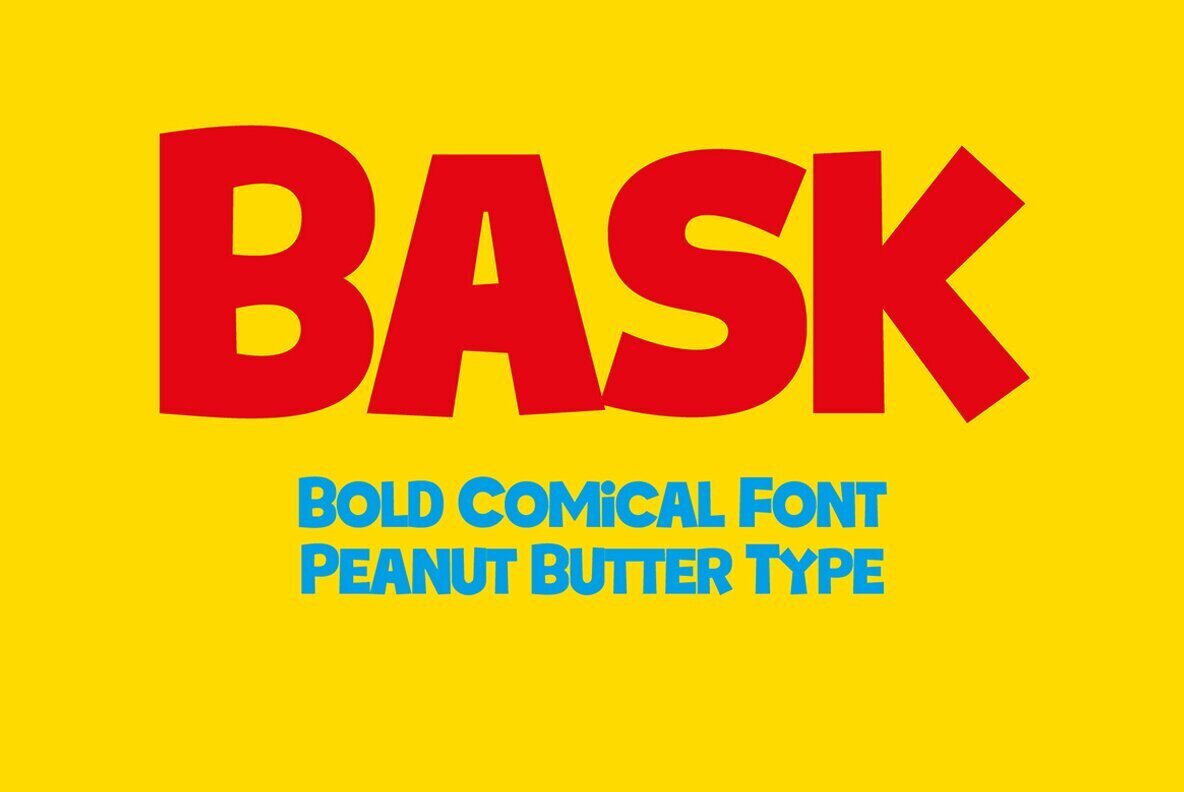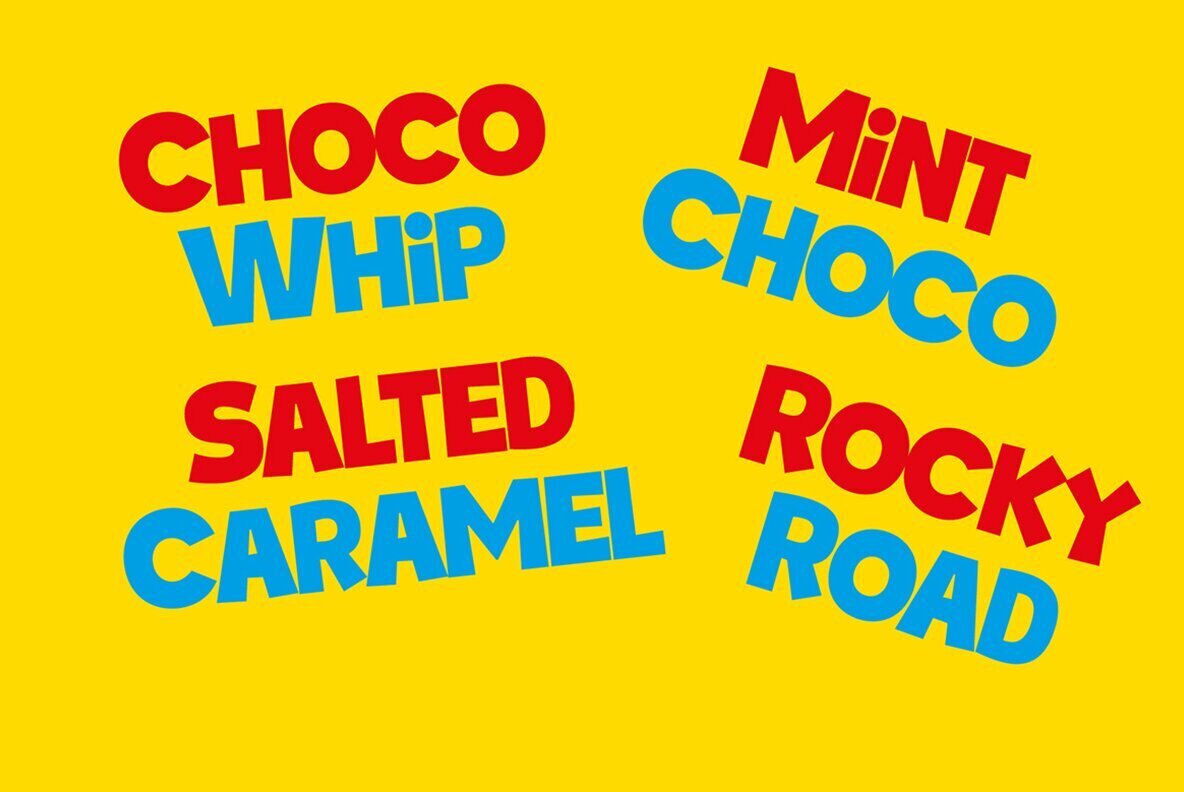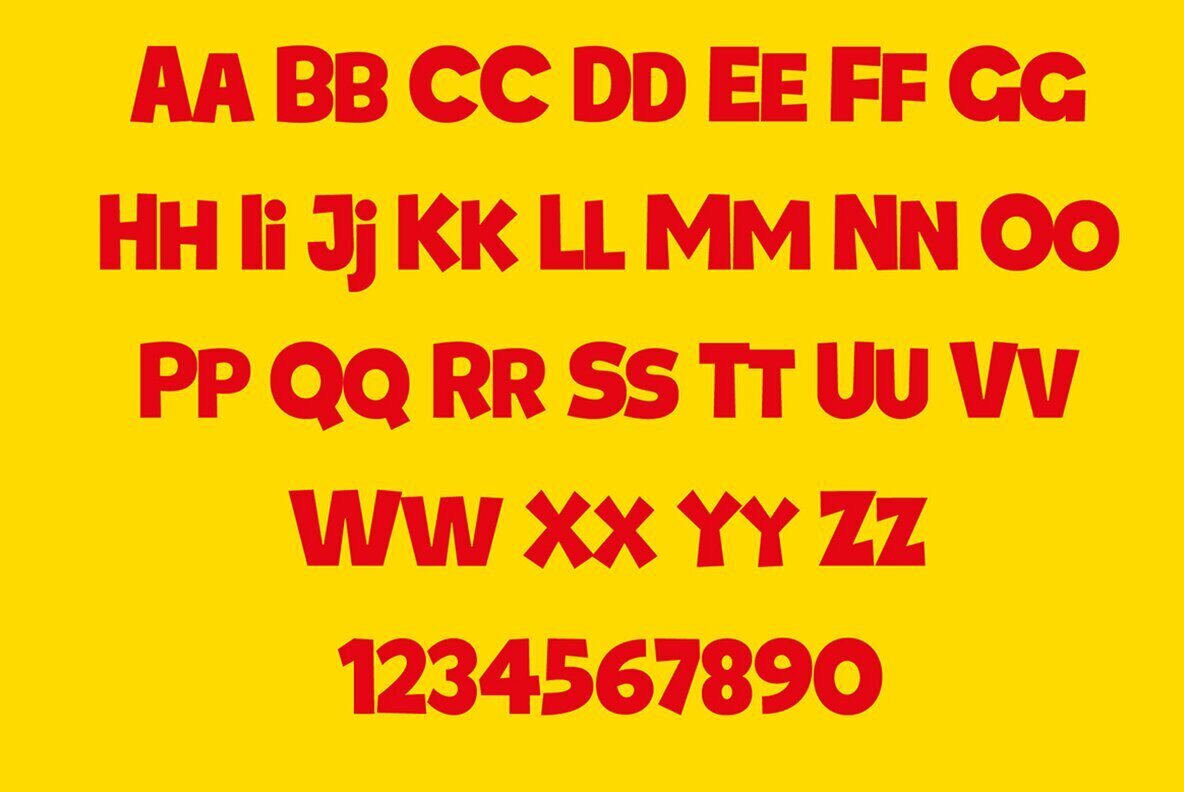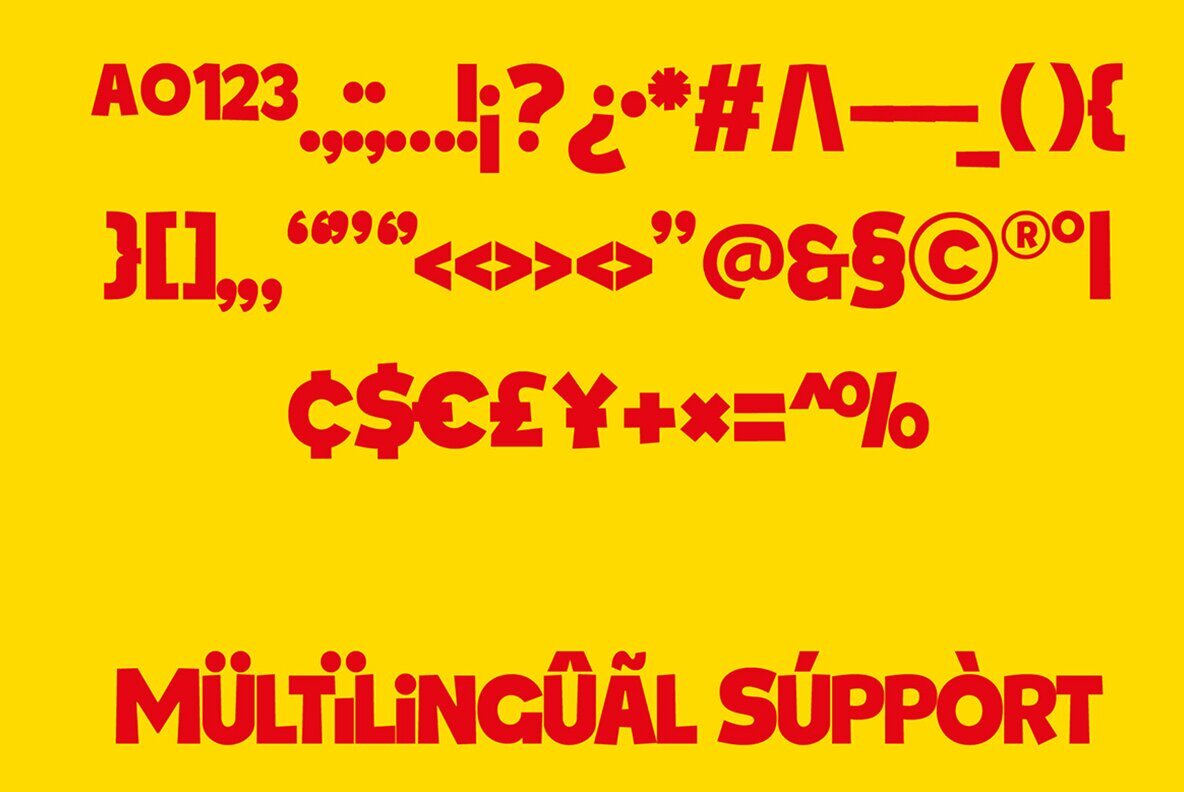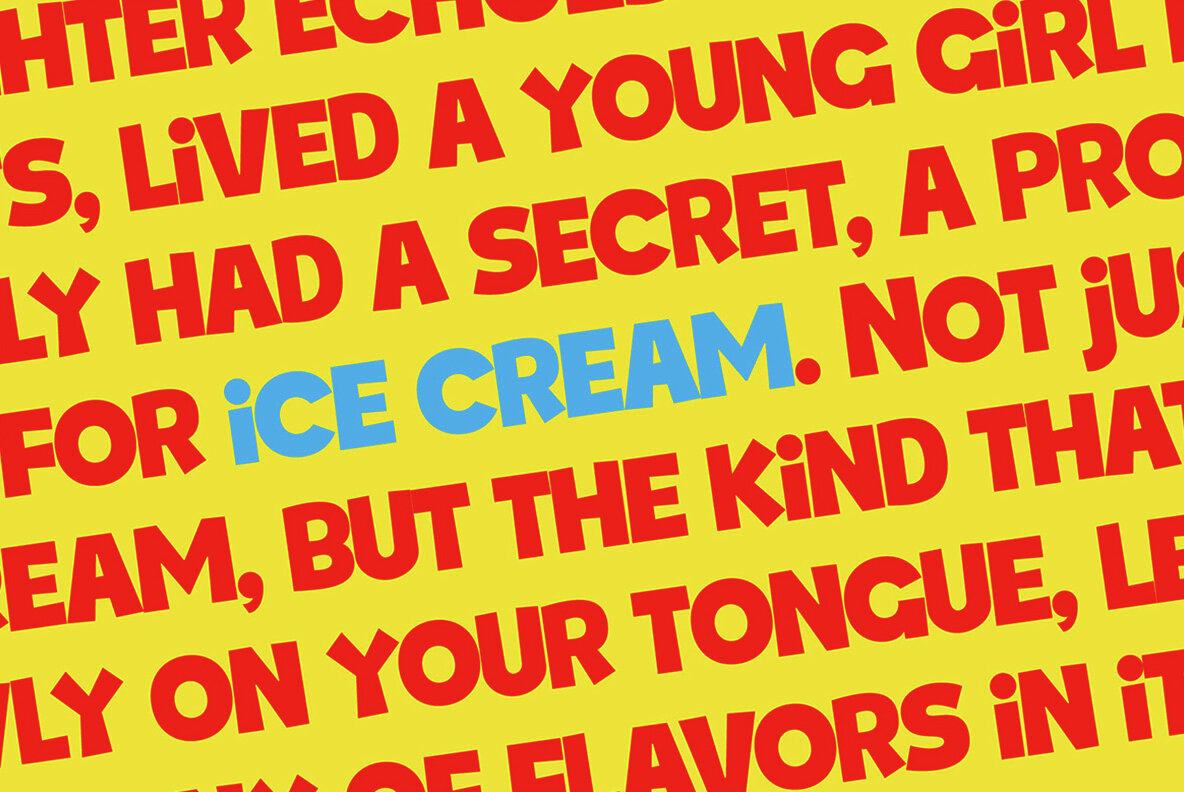
Bask Font
Bask Regular
Unleash your creativity with Bask, a playful typeface that adds a splash of comic charm to any project. From branding to whimsical illustrations, this font brings a delightful touch to your designs, ensuring they stand out with personality and flair.Bask Comic Flavor Font